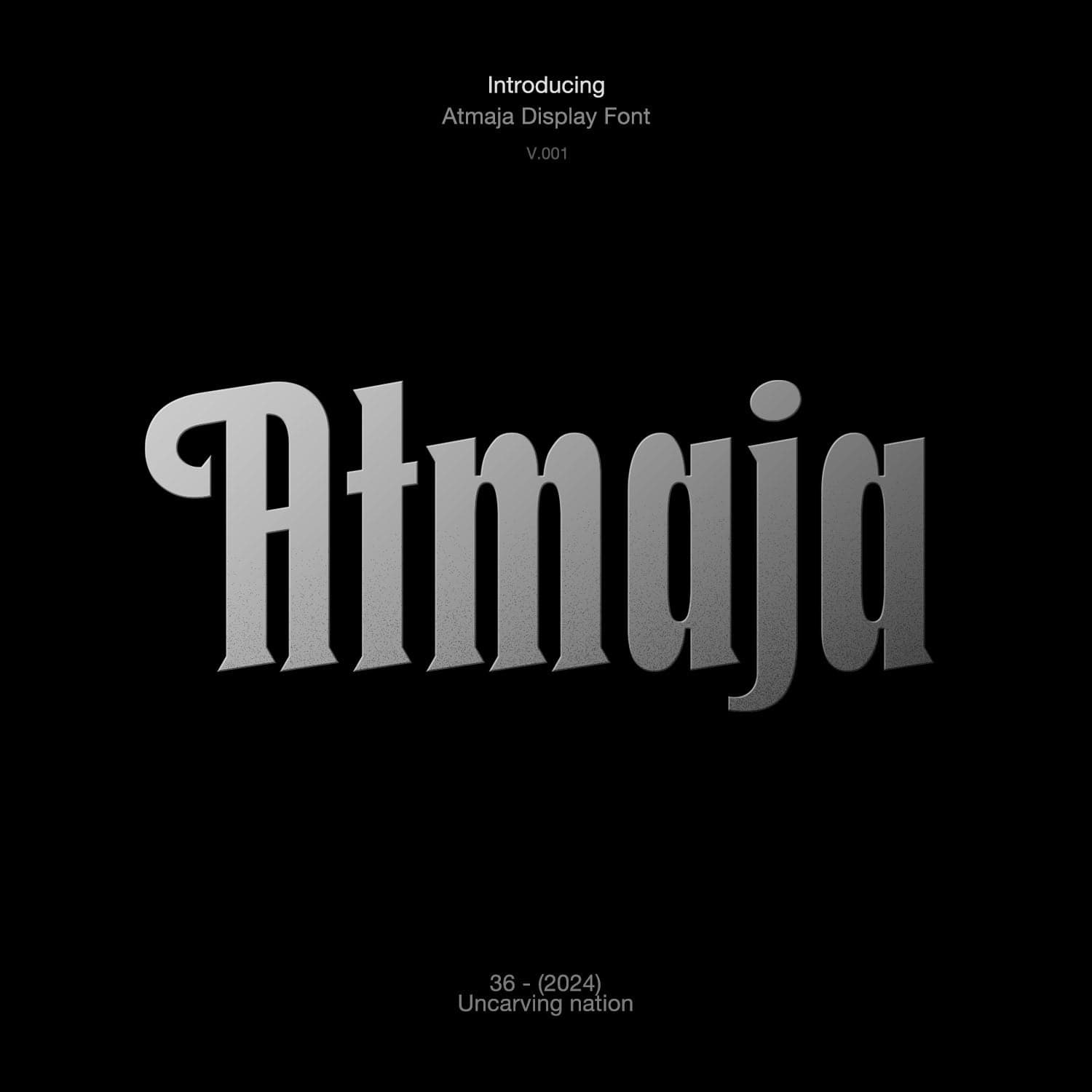
<p>Atmaja is a unique display serif font that seamlessly blends the classic elegance of Garalde fonts. By reinterpreting the artistic and visual richness of these styles towards a more modern and contemporary approach, the result is a timeless font with character and versatility. Atmaja stands out best in larger sizes, making a bold impact in headings and titles, yet remains versatile enough for various design contexts.</p>